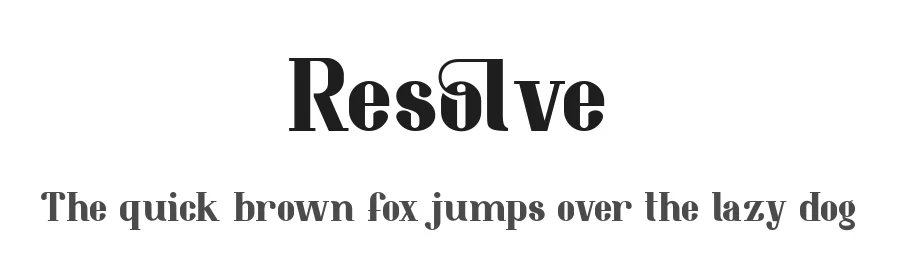
About Brickson Font
Brickson is a distinct, elegant serif that blends traditional influences into a contemporary aesthetic. Elegantly crafted and easily be matched to an incredibly large set of projects. Use Brickson to achieve an exquisite, yet subtle look and maximum versatility.
Brickson Font is a versatile serif font that works for both headings and body text. Pair it with a contrasting sans-serif or slab serif font to add visual interest and a clear distinction between titles and body copy.